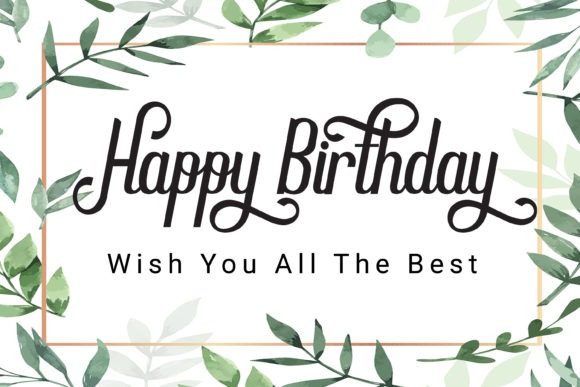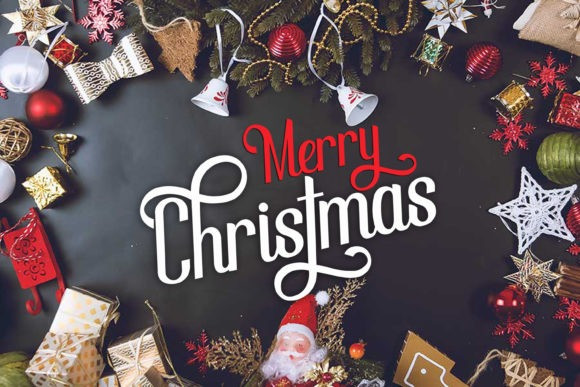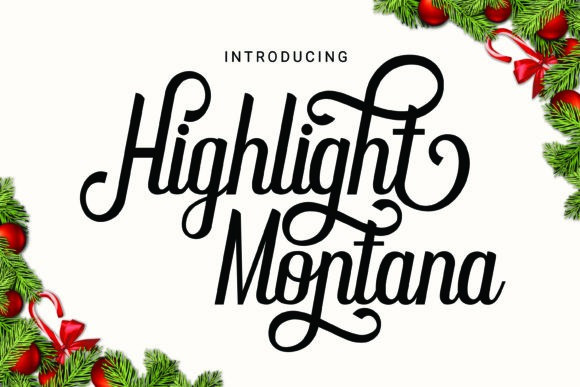
Highlight Montana Font
Highlight Montana Script Font is an elegant script font with a contemporary atmosphere and impeccable form, inspired by timeless classic calligraphy. This font is PUA encoded which means you can access all glyphs and swashes with ease!